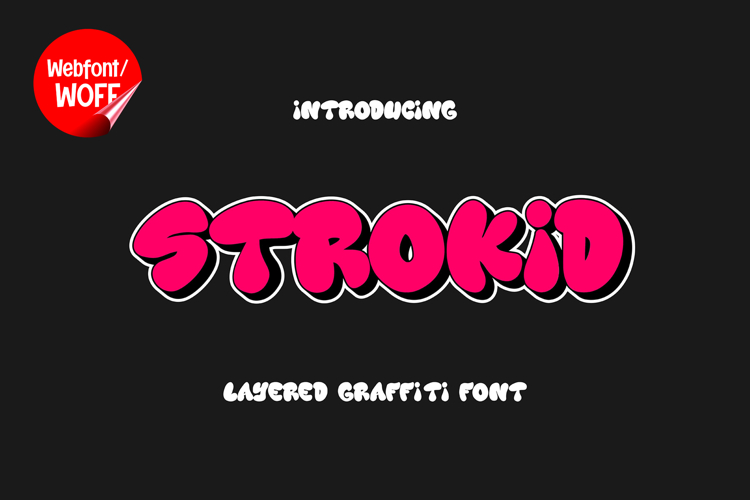
Strokids | Thick Rounded Graffiti Webfont for Bold Websites
Strokids is a bold and expressive graffiti webfont designed to bring strong urban energy into your website design. With its thick strokes and rounded shapes, this font creates a powerful yet friendly visual impact that instantly captures attention. It is the perfect choice for designers who want to combine street-style creativity with a clean and approachable look for digital platforms.
The font features a complete set of uppercase characters, designed with bold proportions and consistent spacing. These uppercase letters are ideal for headlines, banners, hero sections, and call-to-action text. Their strong presence helps create clear visual hierarchy, guiding users through your website content with ease.
In addition to letters, Strokids includes numbers and punctuation, allowing for flexible use across different types of content. Whether you are displaying product prices, promotional offers, event dates, or navigation elements, this font ensures consistency throughout your design. The rounded edges soften the bold structure, making it visually engaging without feeling too aggressive.
Strokids also supports multiple languages, making it suitable for websites targeting international audiences. Its multilingual capability allows you to maintain a consistent visual style across different regions and languages. This makes it a great choice for global brands, creative agencies, and digital creators who want to keep their identity unified.
The combination of thick strokes and rounded forms gives Strokids a unique balance between graffiti style and readability. Unlike traditional graffiti fonts that can sometimes be difficult to read, Strokids is designed to remain clear and legible even in web environments. This makes it highly effective for UI elements, headers, promotional graphics, and featured content sections.
This webfont works especially well for urban-themed websites, streetwear brands, music platforms, gaming interfaces, and creative portfolios. It adds a bold personality that helps your website stand out in a crowded digital space. The playful yet strong character style also makes it suitable for youth-oriented brands and energetic visual identities.
Strokids is more than just a graffiti font—it is a functional design tool that enhances both style and usability. Its modern web-ready format, combined with its distinctive urban aesthetic, makes it a valuable asset for any designer or developer. If you are looking for a rounded and thick graffiti webfont that delivers impact while remaining user-friendly, Strokids is the perfect choice for your next website project.